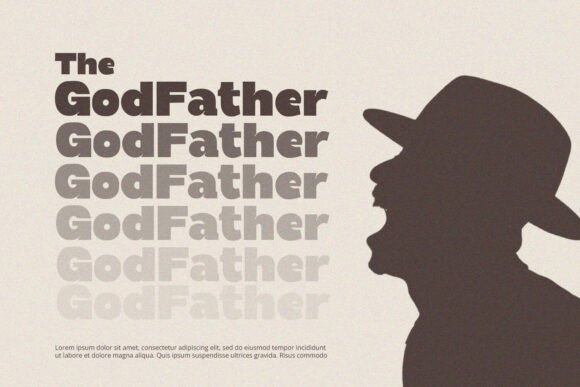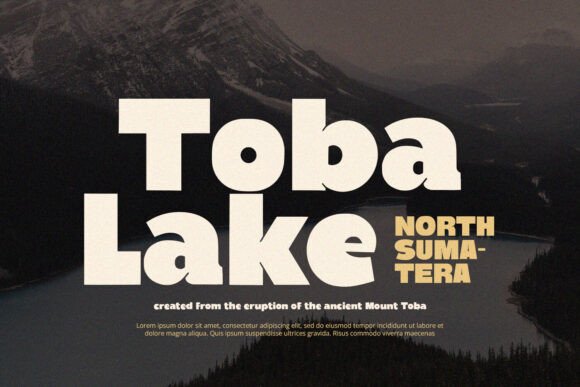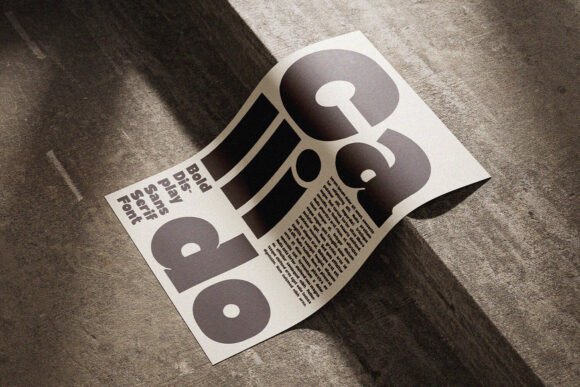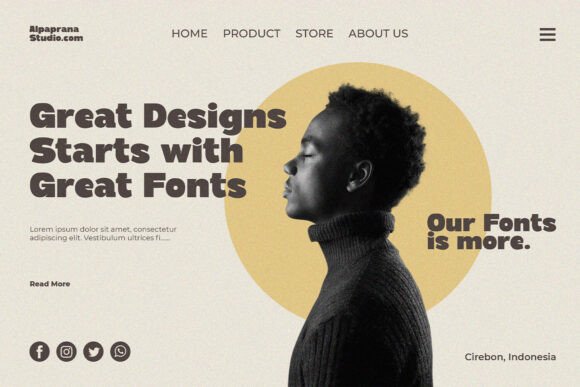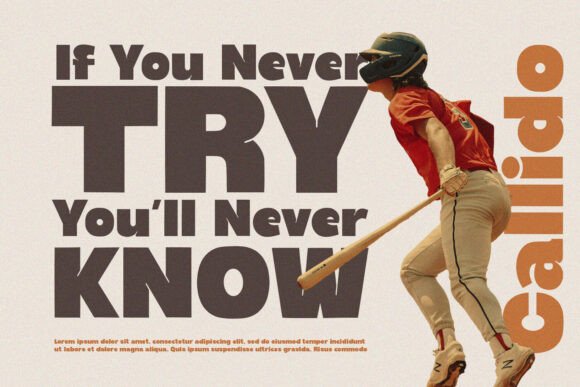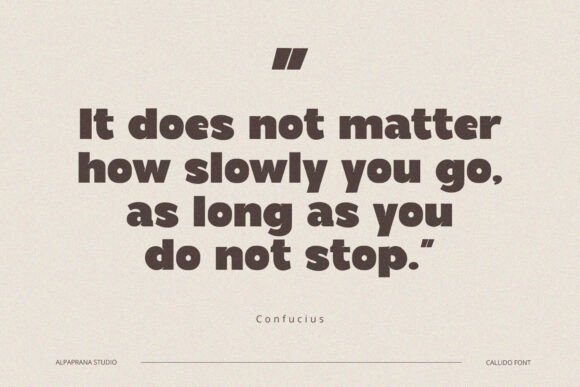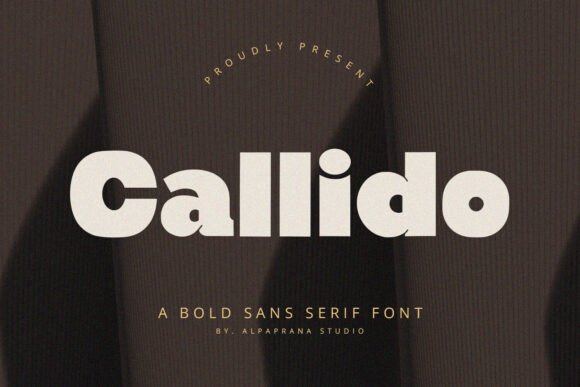
Introducing Callido Font: Elevate Your Designs with Elegance and Modernity
In the world of typography, fonts play a crucial role in conveying the tone and aesthetic of a design project. For designers and crafters seeking a font that exudes elegance and modernity, Callido Font is an exceptional choice. This display sans serif font is specifically designed to add a touch of sophistication to various design projects, making it perfect for a wide range of applications.
What is Callido Font?
Callido is a thoughtfully crafted display sans serif font that boasts an elegant and modern feel. Its clean lines, precise curves, and carefully balanced proportions make it an excellent choice for designs that require a high level of sophistication. The font’s versatility allows it to seamlessly integrate into various design projects, from editorial and advertising materials to packaging and merchandise.
Key Features of Callido Font
- Elegant and Modern Design: Callido’s sleek and refined aesthetic makes it perfect for designs that require a touch of luxury and sophistication.
- Display Sans Serif Font: The font’s sans serif design ensures that it remains clean and legible, even at larger font sizes.
- Versatile and Adaptable: Callido can be used across various design projects, from magazines and posters to packaging and merchandise.
Ideal Use Cases for Callido Font
Callido Font is suitable for a wide range of design projects, including:
- Magazines and Editorials: Add a touch of elegance to your magazine or editorial design with Callido’s sophisticated font style.
- Packaging Design: Elevate your packaging design with Callido’s modern and refined aesthetic.
- Posters and Flyers: Create eye-catching posters and flyers with Callido’s bold and elegant font style.
- Shopping Bags and Merchandise: Add a touch of luxury to your shopping bags and merchandise with Callido’s sophisticated font style.
- T-Shirts and Apparel: Create stylish and modern apparel designs with Callido’s elegant font style.
- Book Covers: Elevate your book cover design with Callido’s refined and sophisticated aesthetic.
- Photography and Special Events: Use Callido to add a touch of elegance to your photography and special event designs.
Why Choose Callido Font?
With Callido Font, designers and crafters can expect:
- High-Quality Design: Callido is crafted with attention to detail, ensuring a high-quality font that meets the needs of professional designers.
- Ease of Use: The font is easy to read and works well across various design projects.
Callido Font is an exceptional choice for designers and crafters seeking a font that exudes elegance and modernity. Its versatility, adaptability, and high-quality design make it perfect for a wide range of design projects. Whether you’re working on a magazine, packaging, poster, or merchandise, Callido Font is sure to elevate your design and add a touch of sophistication.